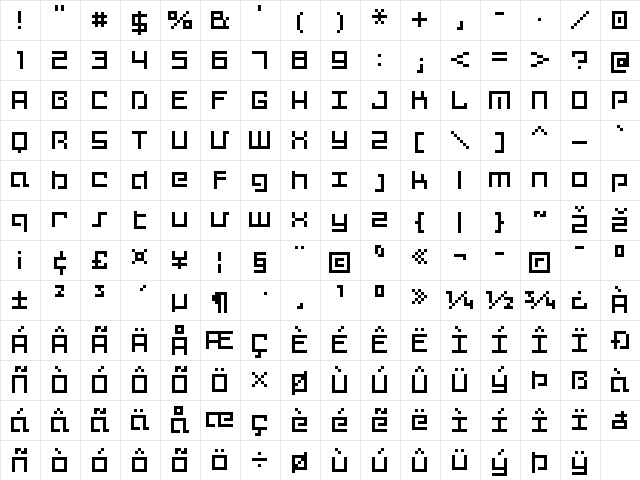
FFF Bytecode Extended Regular
Design Context for FFF Bytecode Extended Typeface
FFF Bytecode Extended brings the precise, column-aligned rhythm of monospaced typography to designs that value technical clarity and systematic order.
A natural fit for code editors, technical documentation, developer-focused branding, and terminal-inspired UI.
Pro Tip: Pair FFF Bytecode Extended with a proportional sans for UI contexts where code-style labels and regular body copy need to coexist.